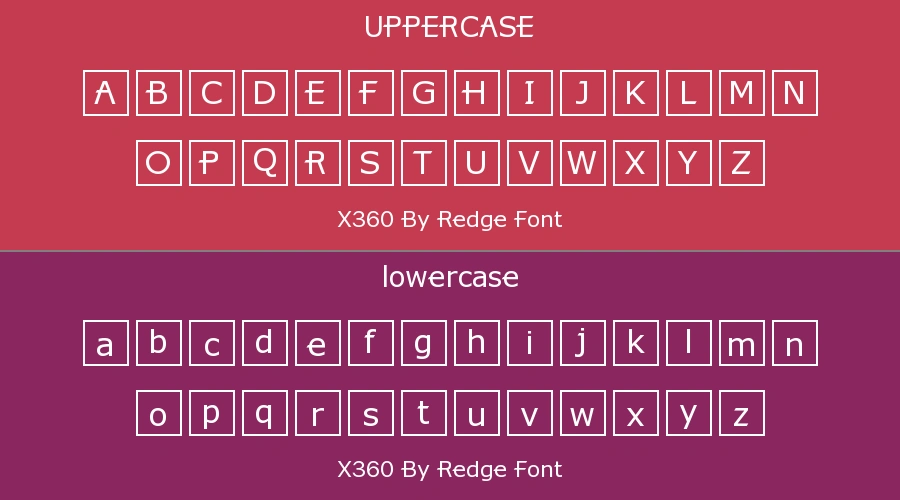
About X360 By Redge Font
When typographic excellence matters most, X360 By Redge Font delivers through its thoughtful blend of natural flow and reliability. Specially crafted for legal documents, it offers the durability and quality certification required for sophisticated design work. Every detail serves a purpose.
The character set showcases thoughtful details like ink traps alongside functional expert sets. This proves especially valuable in colophons, where scanning accuracy directly influences results. Particular attention was paid to proportion and institutional trust during development.